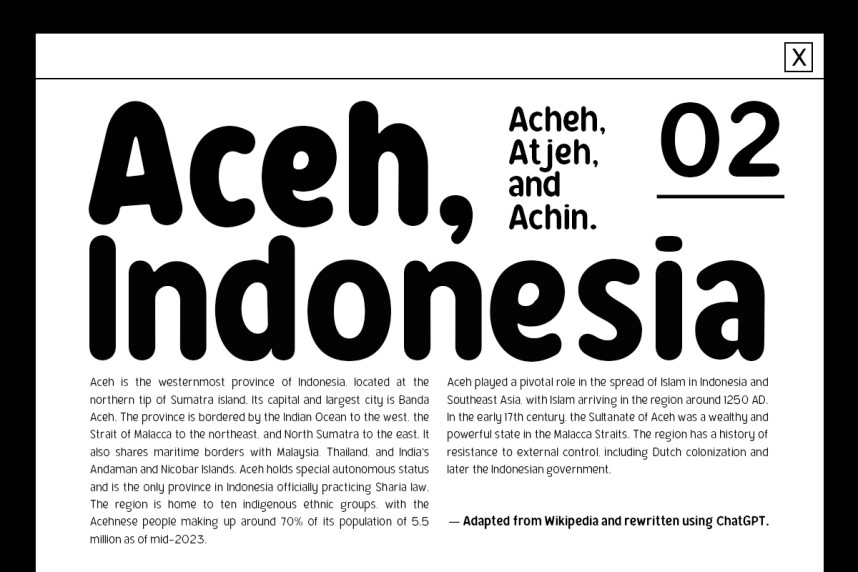
Bener Rounded Font is a rounded sans serif display font family designed to bring warmth, clarity, and modern charm to your designs. With smooth curves and soft terminals, this typeface balances playful friendliness with professional readability, making it perfect for both creative and commercial projects.
Built as a font family, Bener Rounded offers flexible weights that adapt effortlessly to branding, UI design, packaging, editorial layouts, and digital content. Its rounded construction creates an approachable personality while maintaining clean geometry—ideal for brands that want to feel modern, trustworthy, and human.
Whether you’re designing logos, headlines, posters, apps, or social media visuals, Bener Rounded delivers consistent style and strong visual appeal across all platforms.
Bener Rounded – Sans Serif Rounded Display Family Font